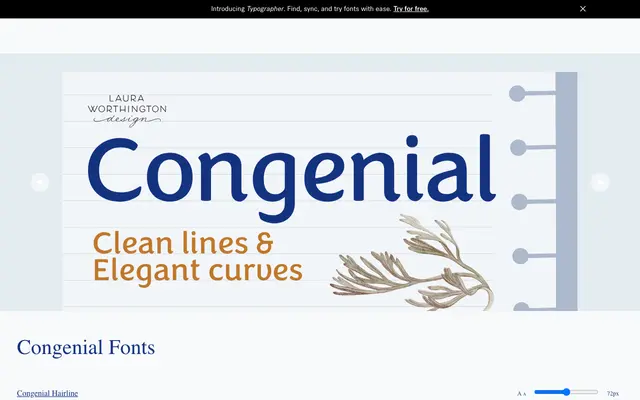
Congenial
A 10-weight humanist sans by Laura Worthington, designed as a legible everyday companion to her decorative display library, with calligraphic traces most visible in the heavier cuts.
Designed primarily for use on Worthington's own website, Congenial draws on her calligraphic background to introduce subtle hand-drawn character into an otherwise clean sans-serif framework. The family spans Hairline to Black across 20 styles including italics throughout, and features a generous x-height with carefully differentiated letterforms for strong legibility. OpenType features include small capitals, old-style numerals, fractions and superscript, with broad Latin language coverage across European scripts.
Congenial is a sans-serif with calligraphic underpinnings visible in the heavier weights, giving it the warmth and character differentiation associated with humanist sans designs rather than geometric or grotesque models.